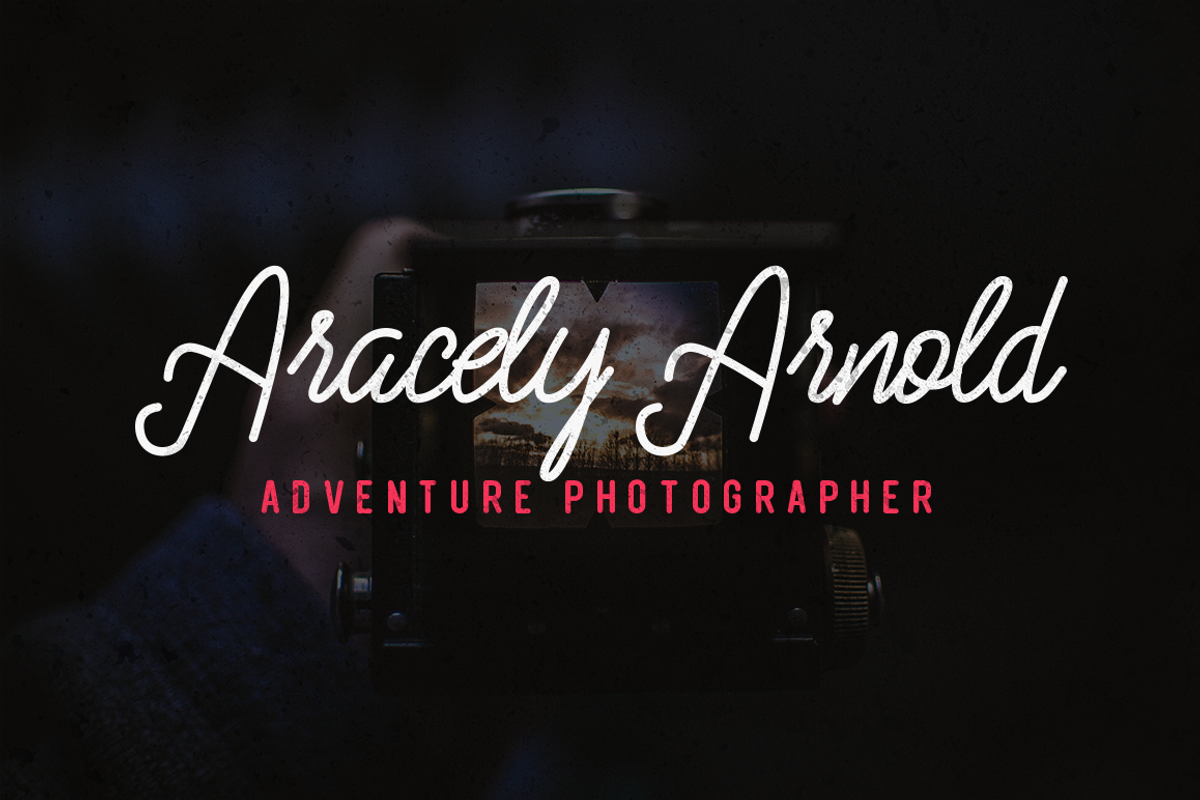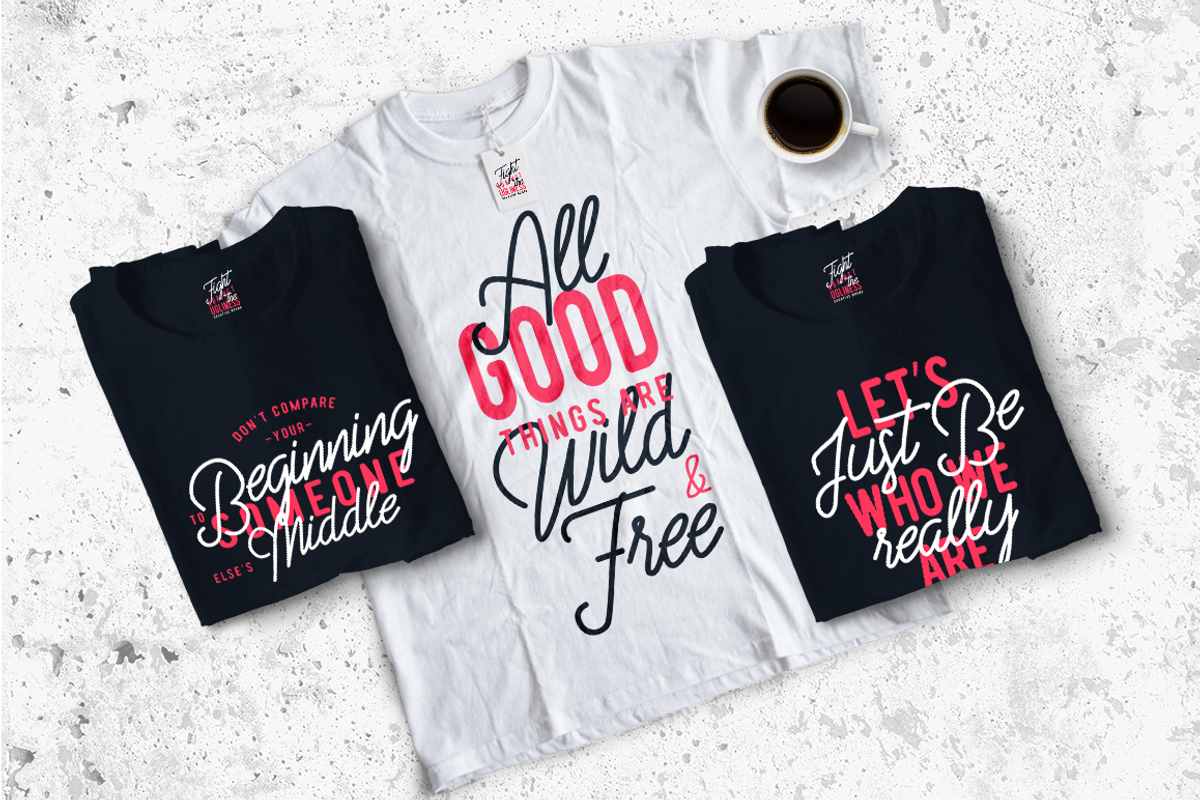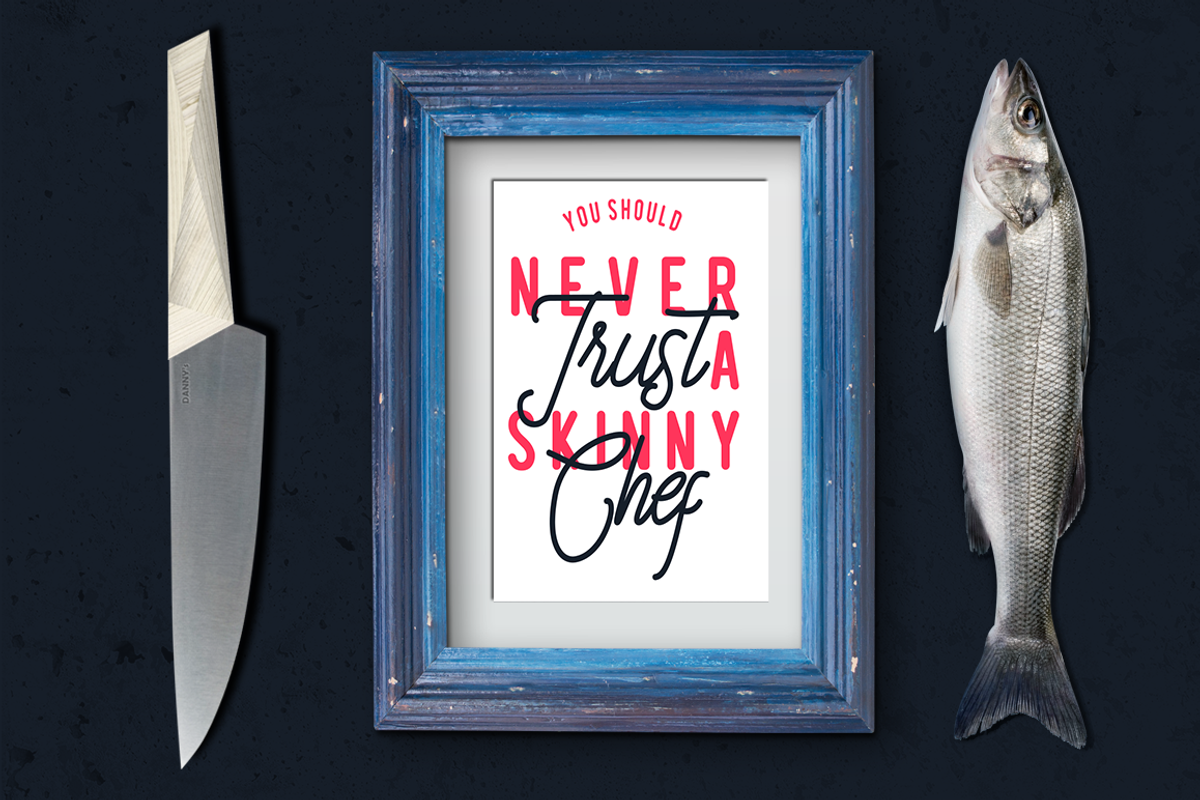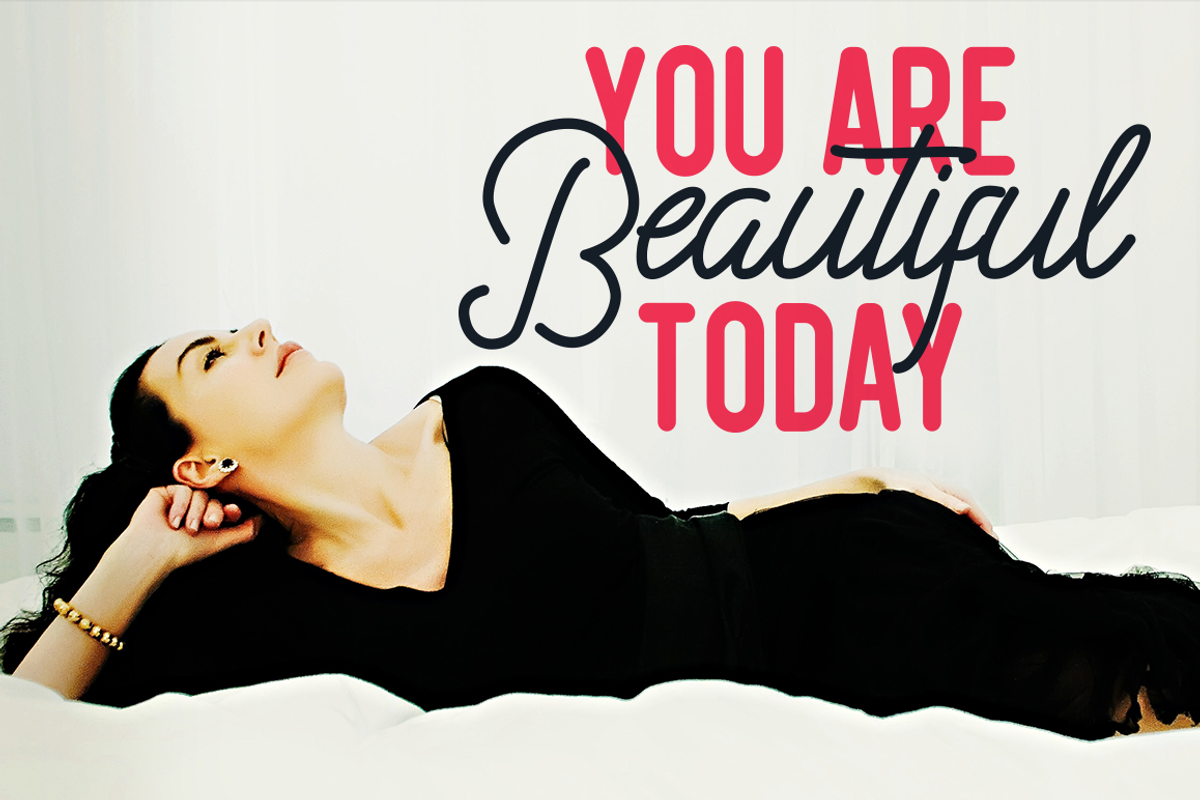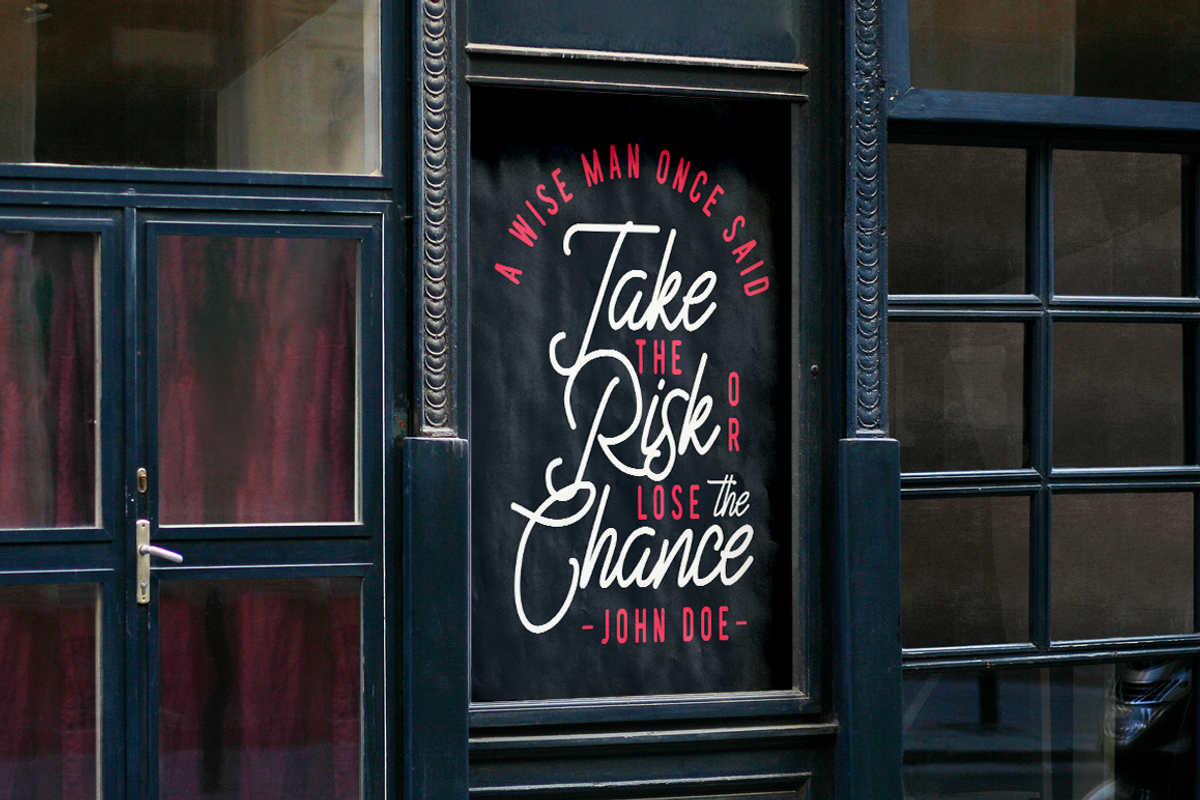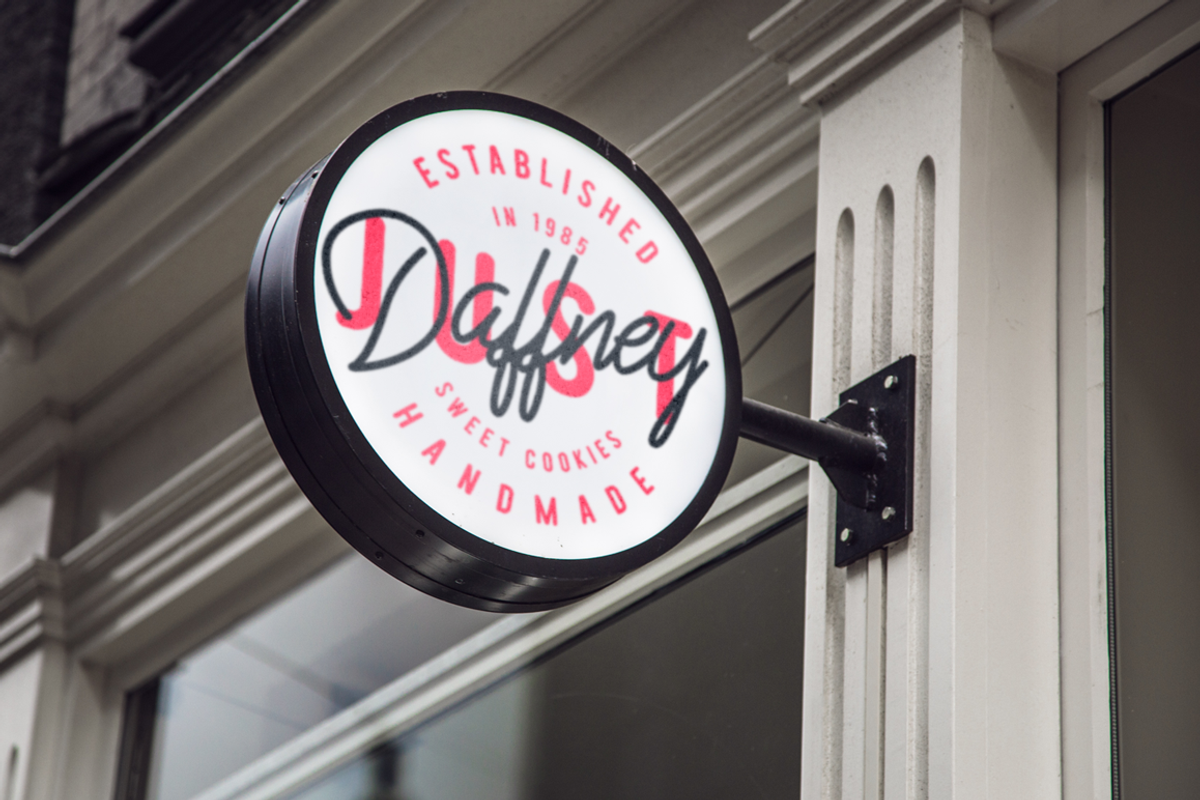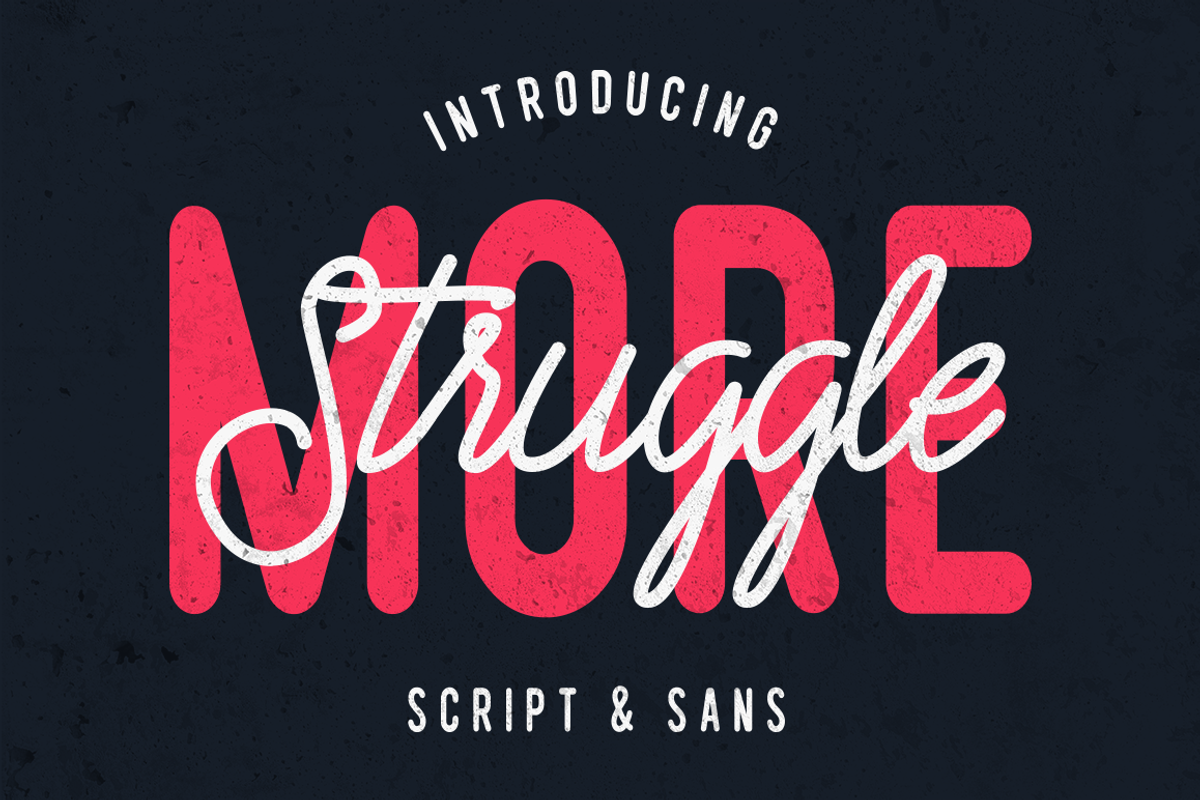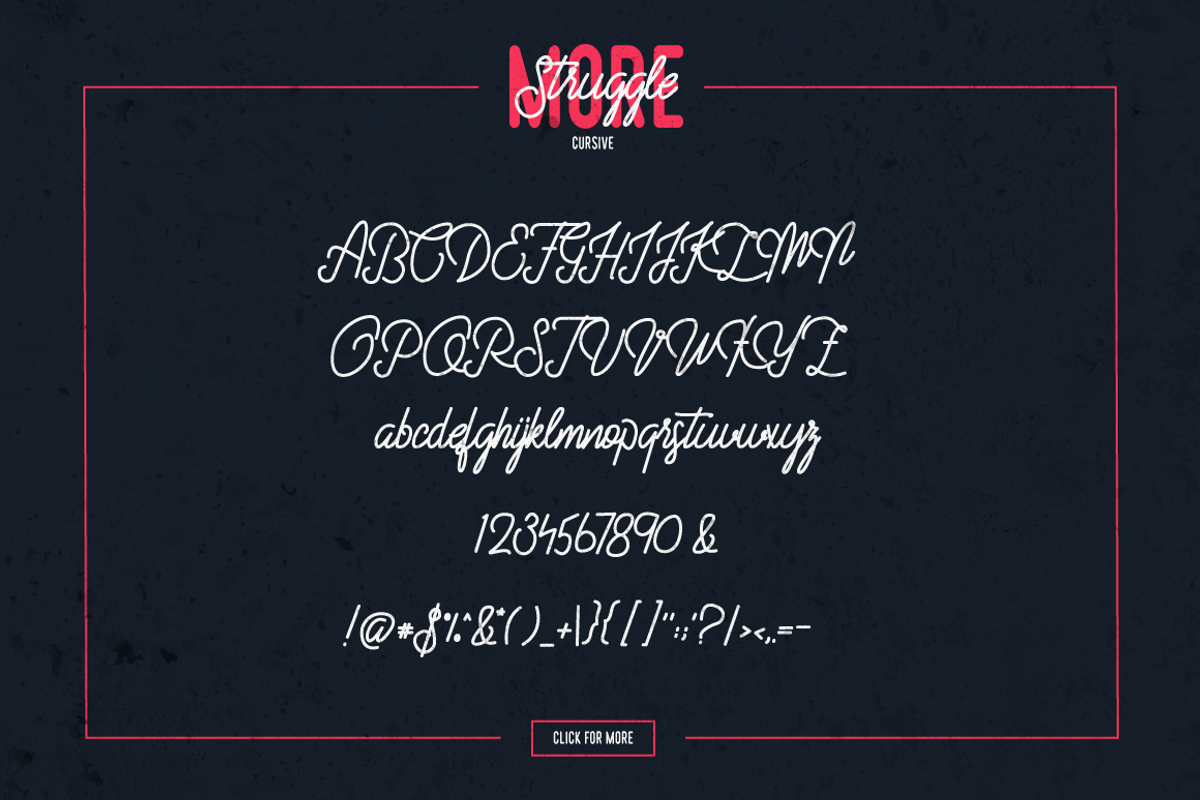
Struggle More - Script & Sans Font
Struggle More - Script & Sans Font by LovePowerDesigns is a font selected for branding, posters, packaging, typography.
Why Struggle More - Script & Sans Font is worth a look
Struggle More - Script & Sans Font by LovePowerDesigns fits naturally into Branding, posters, packaging, typography.